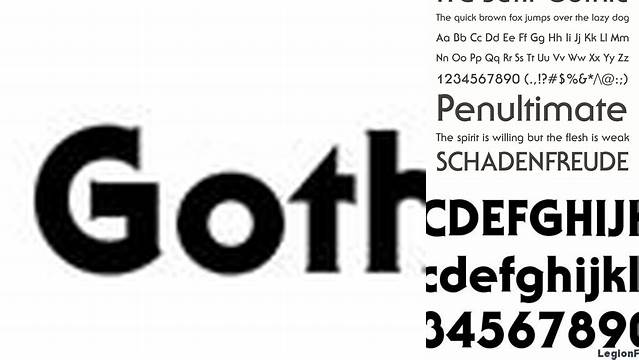
ITC Serif Gothic Heavy Font: Free Download & Usage Guide
Hey guys! Have you ever stumbled upon a font that just screams classic and versatile? Well, let me introduce you to the ITC Serif Gothic Heavy font. This typeface is a real gem, blending the elegance of serifs with the strong, sturdy feel of a gothic design. In this article, we're diving deep into what makes ITC Serif Gothic Heavy so special, where you can find it for free (yes, you read that right!), and how to best use it in your projects.
What is ITC Serif Gothic Heavy?
The ITC Serif Gothic Heavy font is a distinctive typeface characterized by its blend of traditional serif elements with the robust structure of gothic fonts. This unique combination makes it a versatile choice for various design applications, ranging from print to digital media. Its bold, heavy weight gives it a commanding presence, ensuring that text set in this font stands out and captures the reader's attention. The font's design reflects a balance between classic elegance and modern functionality, making it suitable for both headlines and body text, depending on the specific context and layout. Specifically, the serifs add a touch of sophistication, while the gothic influence contributes to its strong, assertive character, which makes it a very useful font for graphic designers.
The history of the ITC Serif Gothic Heavy font is rooted in the broader evolution of typeface design, where designers have often sought to combine different stylistic elements to create unique and impactful fonts. ITC, or International Typeface Corporation, has been a significant player in this evolution, known for its innovative and high-quality font designs. ITC Serif Gothic Heavy is a testament to this legacy, showcasing the company's commitment to pushing the boundaries of typography. Its creation was driven by the desire to offer designers a typeface that could convey both authority and elegance, suitable for a wide range of applications, from corporate branding to editorial design. The font's development involved careful consideration of letterforms, spacing, and weight, ensuring that it would be both visually appealing and highly legible, making it a valuable tool for effective communication.
When you look at the ITC Serif Gothic Heavy font, you'll notice its unique features that set it apart from other typefaces. The serifs are carefully crafted to complement the overall gothic structure, creating a harmonious balance between the two styles. The heavy weight of the font adds to its impact, making it ideal for headlines and titles where visibility is crucial. The letterforms are designed with precision, ensuring that each character is distinct and contributes to the font's overall aesthetic appeal. Additionally, the spacing between letters and words has been meticulously considered to enhance readability, making it a practical choice for longer blocks of text as well. All these elements combine to make ITC Serif Gothic Heavy a versatile and visually striking typeface that can add a touch of sophistication and authority to any design project, ensuring that the message is delivered with clarity and style. It’s this attention to detail that makes it a favorite among designers looking for a font that can make a statement.
How to Use ITC Serif Gothic Heavy in Your Projects
So, you’ve got your hands on the ITC Serif Gothic Heavy font. Awesome! Now, let's talk about how to make the most of it. This font isn't just a pretty face; it's a workhorse that can elevate your designs when used correctly. Its bold and elegant nature makes it perfect for a variety of applications. Using the ITC Serif Gothic Heavy font effectively involves understanding its strengths and limitations. Its distinctive appearance makes it well-suited for headlines and titles, where its bold weight and elegant serifs can capture attention and convey a sense of authority. However, due to its heavy weight, it may not be the best choice for large blocks of body text, as it can become tiring to read over extended periods. Instead, consider using it sparingly to highlight key information or to add a touch of sophistication to your designs. When pairing ITC Serif Gothic Heavy with other fonts, opt for those that offer a strong contrast in style and weight to create visual interest and balance. For example, a lighter sans-serif font can complement the boldness of ITC Serif Gothic Heavy, ensuring that the overall design remains legible and visually appealing. Experimenting with different font combinations will help you discover the most effective ways to integrate ITC Serif Gothic Heavy into your projects, enhancing their aesthetic appeal and communicative power.
Here are a few ideas to get you started:
- Headlines and Titles: This is where ITC Serif Gothic Heavy really shines. Use it for headlines, titles, and subheadings to grab attention. Its strong, bold look ensures your message stands out.
- Logos and Branding: If you want a logo that exudes confidence and sophistication, ITC Serif Gothic Heavy is a solid choice. It’s perfect for brands that want to convey a sense of tradition and reliability. Think law firms, financial institutions, or high-end retail.
- Posters and Flyers: Need to make a statement? ITC Serif Gothic Heavy is your go-to font. Use it for event posters, flyers, and promotional materials to make sure your message is seen and remembered.
The ITC Serif Gothic Heavy font is a fantastic typeface that combines elegance and strength. Whether you’re designing a logo, creating a poster, or just looking for a font that stands out, it’s a great choice. Remember to be careful when downloading fonts for free and always check the license. And don’t be afraid to experiment with different font pairings and design techniques to make the most of this versatile typeface. Happy designing, folks! Enjoy using the ITC Serif Gothic Heavy font in your projects. Its unique blend of serif and gothic styles can bring a touch of sophistication and authority to any design, making it a valuable addition to your typographic toolkit.